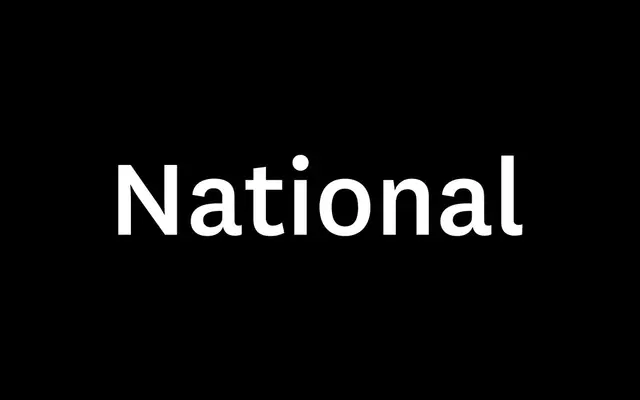
National
Klim Type Foundry · Kris Sowersby · 2007
An Akzidenz-era grotesque drawn as the stylistic opposite of Helvetica, with looser spacing and a true italic for long-form reading.
An Akzidenz-rooted grotesque by Kris Sowersby, drawn as a stylistic opposite to Helvetica with looser spacing, unambiguous forms, old-style figures and a genuine italic rather than a sloped roman. Eighteen styles run from Thin to Black with paired italics, aimed at long-form reading at small sizes while still holding up at display. Klim now also offers National 2, the 10-year remaster, but the original National stays in the library for projects that want the earlier drawing and its specific tone of voice.
Klim classifies it as Modern: Lineal/Grotesque; a deceptively simple sans drawn as a stylistic opposite to Helvetica, with looser spacing, unambiguous forms, old-style figures and a true italic, drawing details from the era of Akzidenz Grotesk.